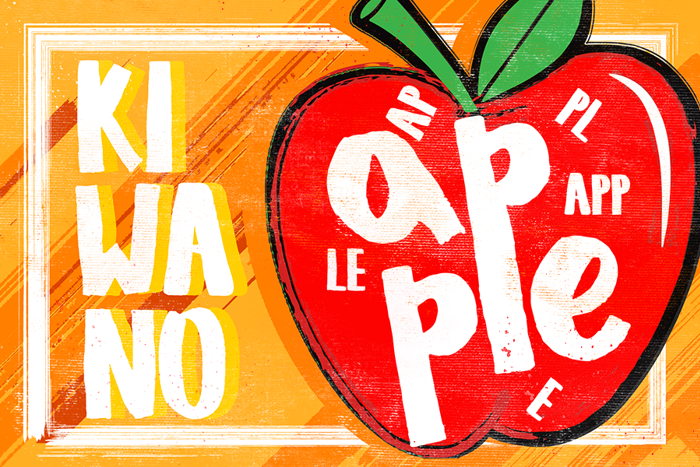
KIWANO APPLE Font
This is handmade Font, Calligraphy style, Suitable for design, element design, wedding, event, t-shirt, logo, badges, sticker, and awesome work about summer.